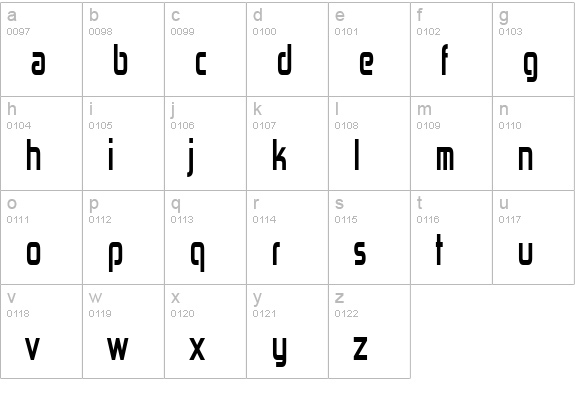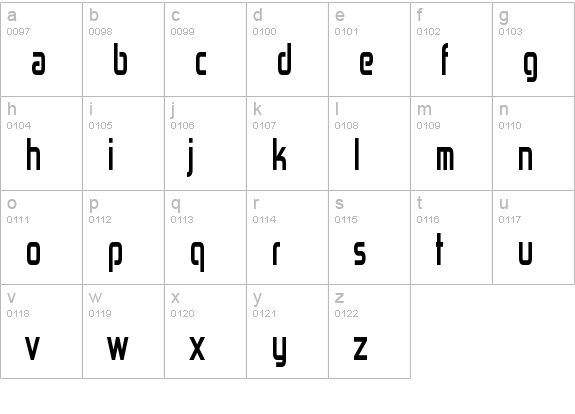
Zekton Cd Bold is a strong, high-contrast variant in the Zekton typeface family \xE2\x80\x94 well suited to headlines, attention-grabbing titles, and strong calls-to-action.
Zekton Cd Bold is a modern and versatile typeface that exudes a sense of strength and authority. With its bold and dynamic letterforms, this font is perfect for making a bold statement in your designs. Whether you're designing a logo, poster, or website, Zekton Cd Bold commands attention and leaves a lasting impression. The best part? Zekton Cd Bold is available for free download at FontsMarket.com. This means you can easily access this powerful font and incorporate it into your projects without any cost. Don't miss out on the opportunity to add Zekton Cd Bold to your font collection and take your designs to the next level. Download it now and unleash the boldness of Zekton Cd Bold in your creative endeavors.